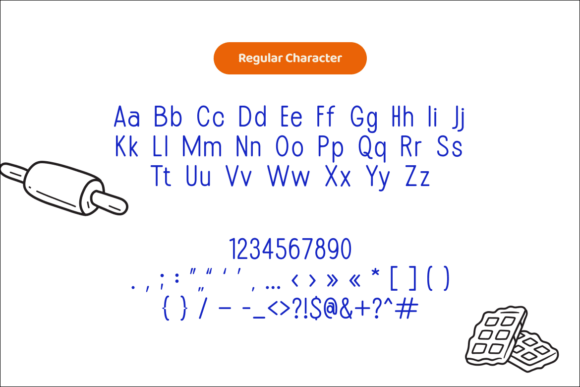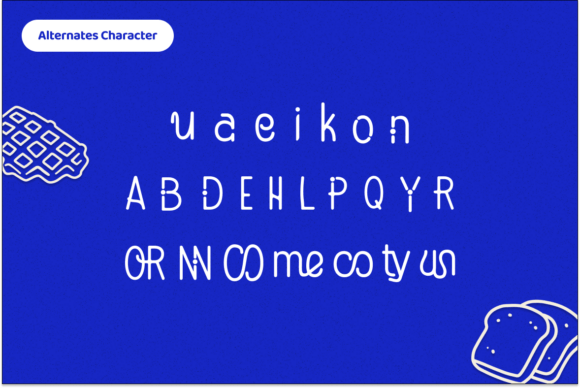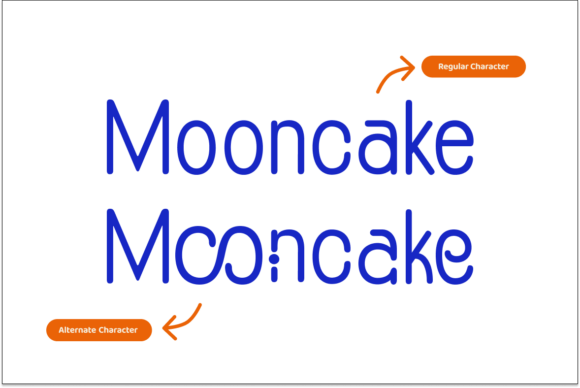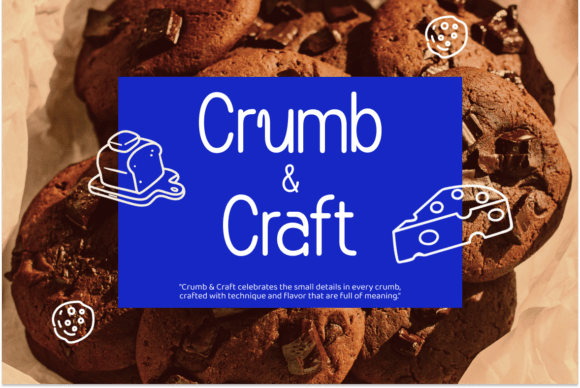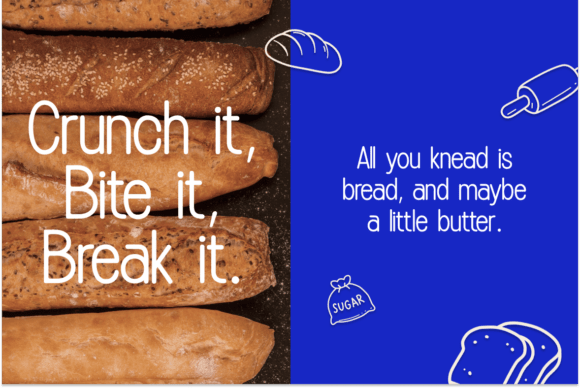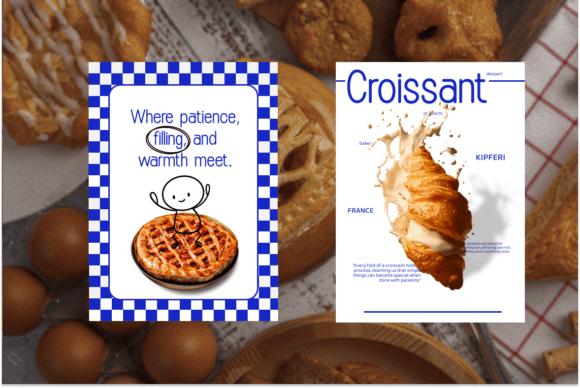
Introduction to Munchy Cookie Font
Indulge your sweet tooth for design with Munchy Cookie, a delightful display sans that captures a “tasty-and-talkative” soul.
This font features tall, slender letterforms uniquely characterized by rhythmic, hand-drawn “bouncy” alignments and soft, monoline strokes that bridge the gap between casual kitchen notes and modern artisanal bakery branding With its approachable personality and organic flow, Munchy Cookie is the premier choice for independent cafe identities, boutique confectionery logos, cookbook layouts, and high-impact “snackable-and-stylized” social media headers.
Key Features of Munchy Cookie Font
Why Choose Munchy Cookie Font?
Munchy Cookie Font offers exceptional quality and versatility, making it a valuable addition to your design toolkit. Whether you’re creating for personal projects or commercial use, Munchy Cookie Font delivers professional results.